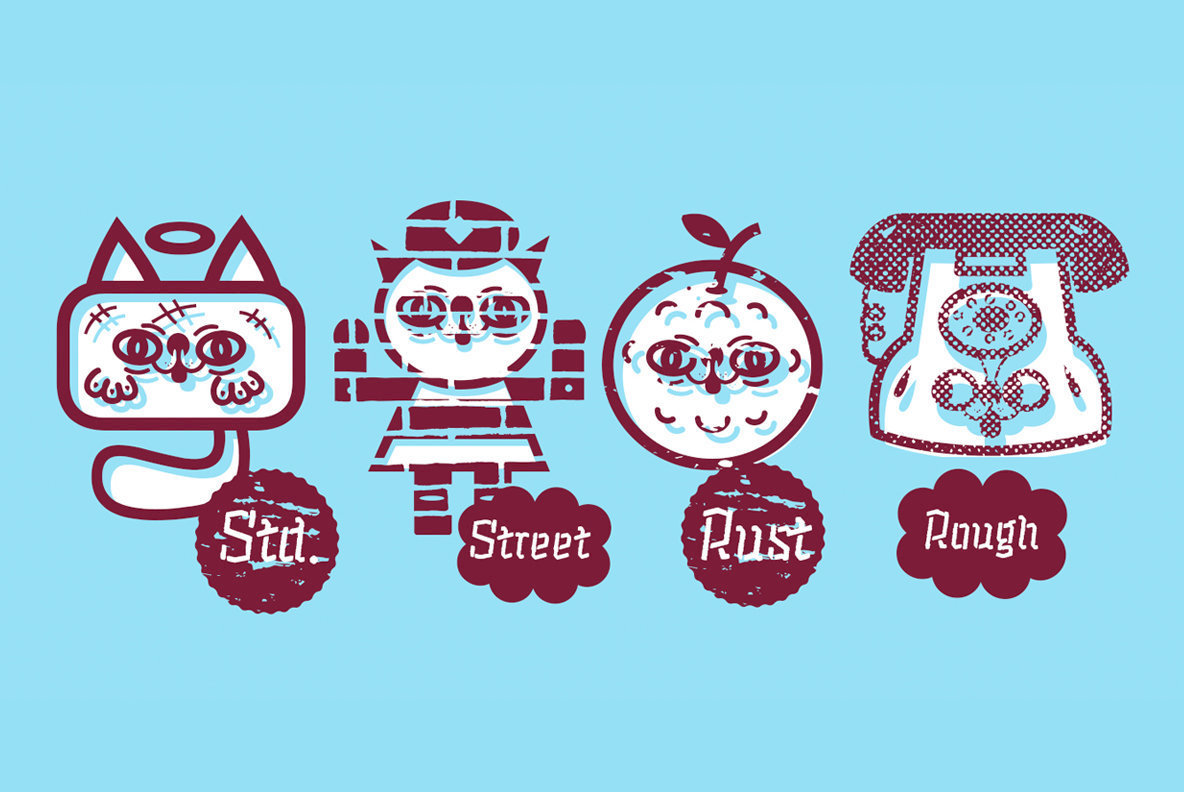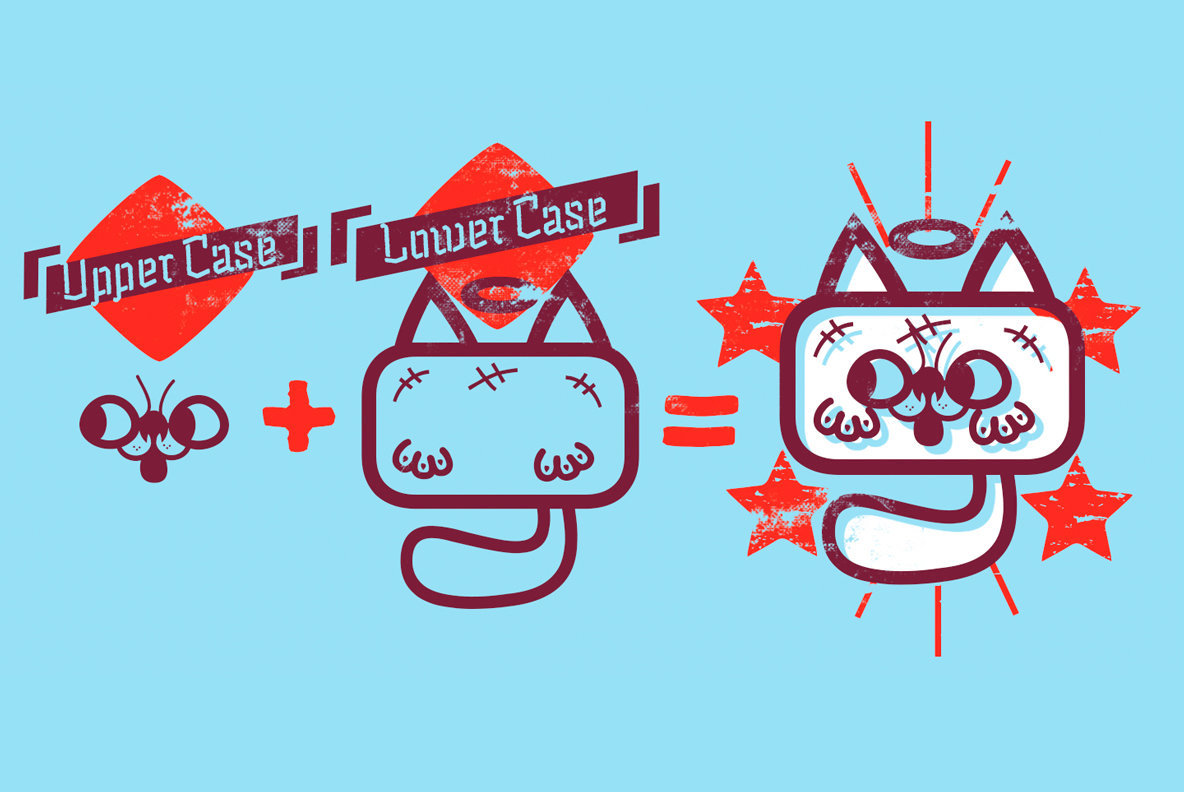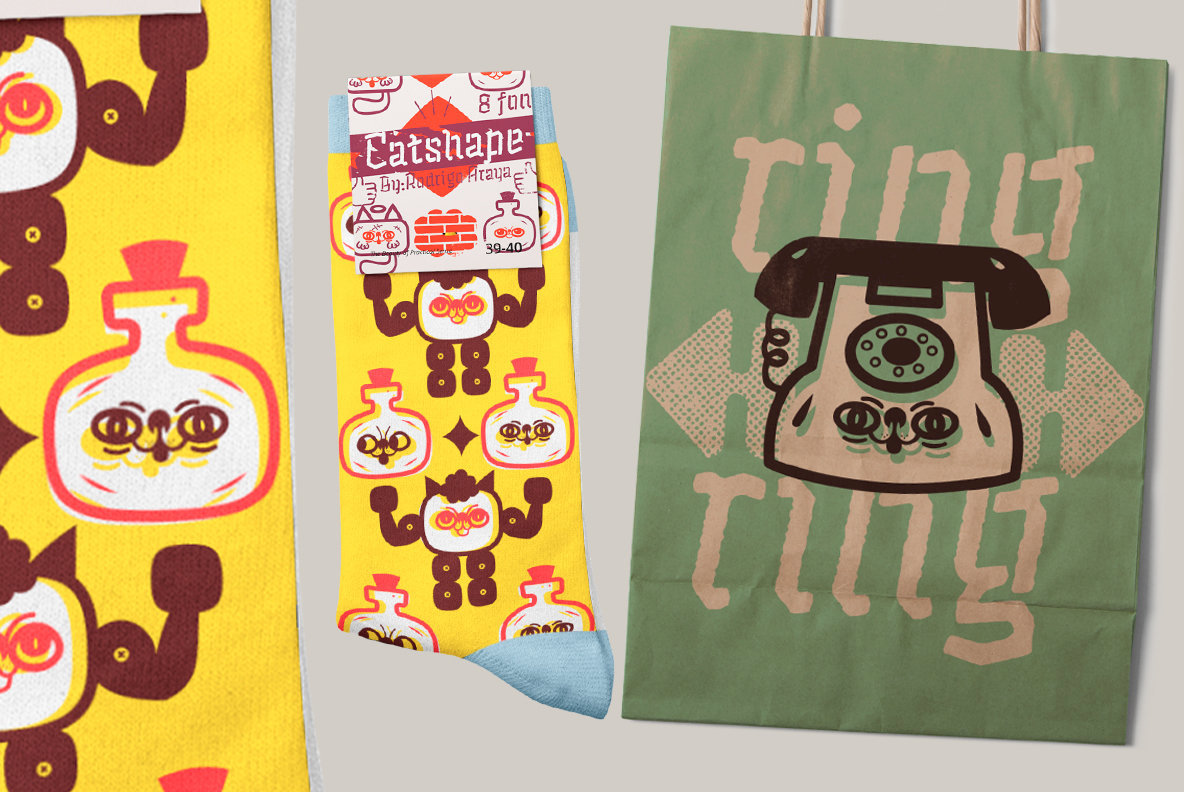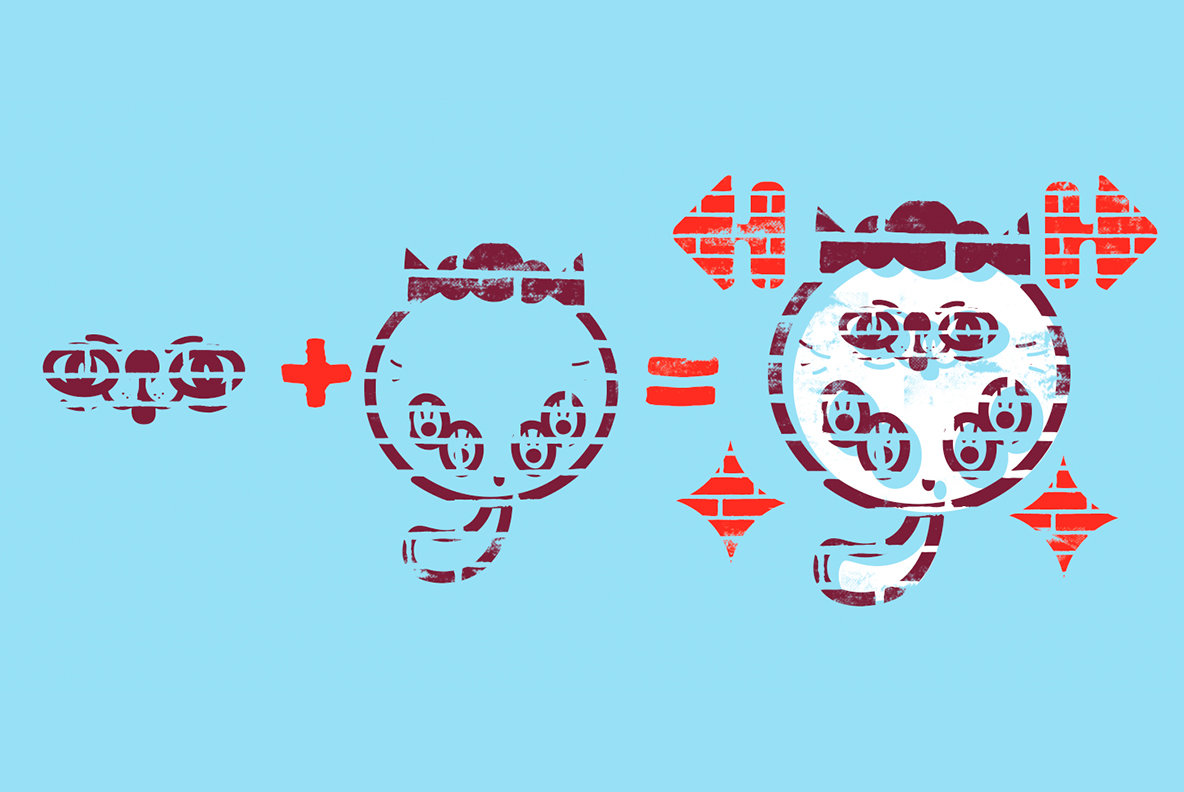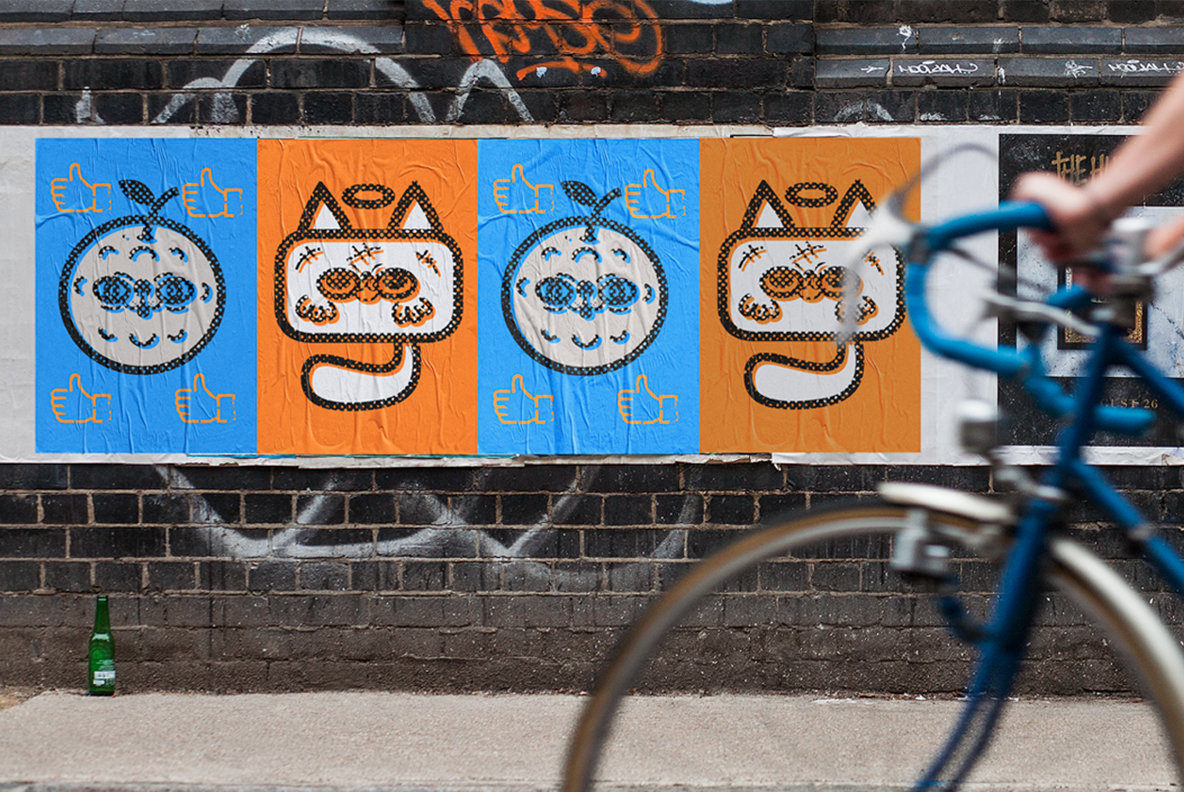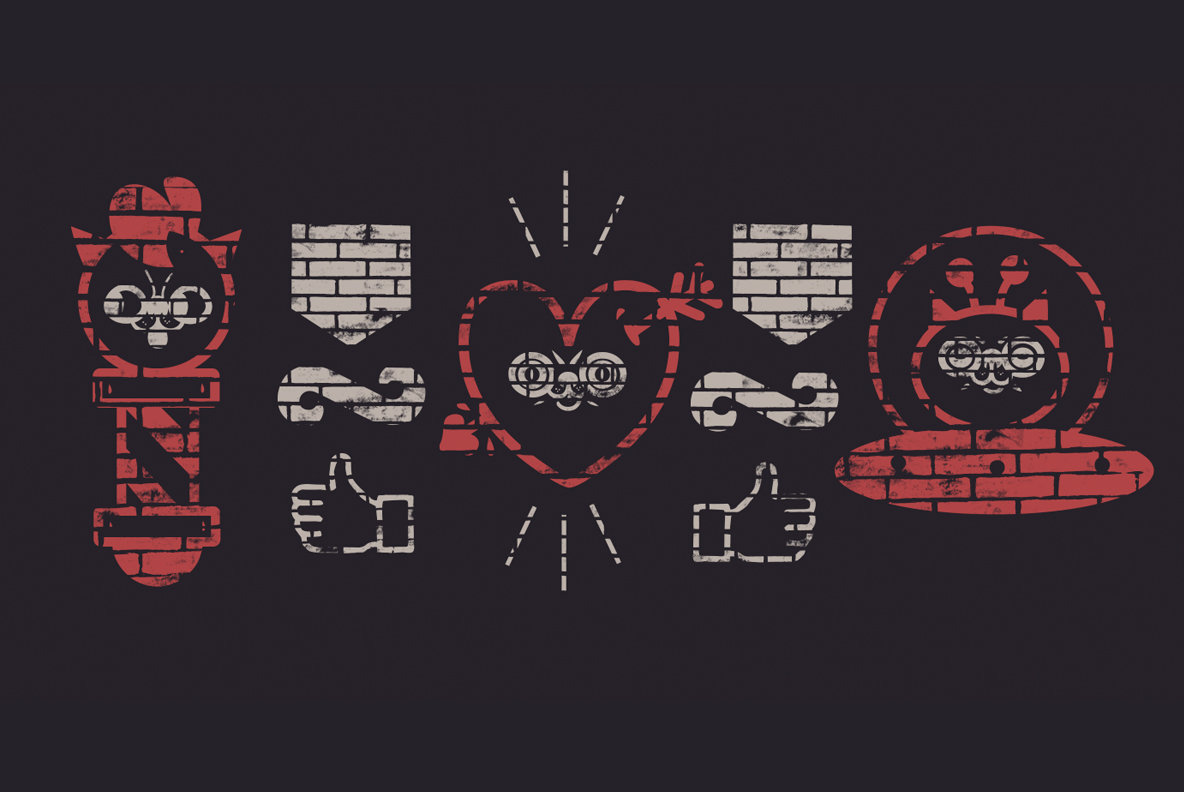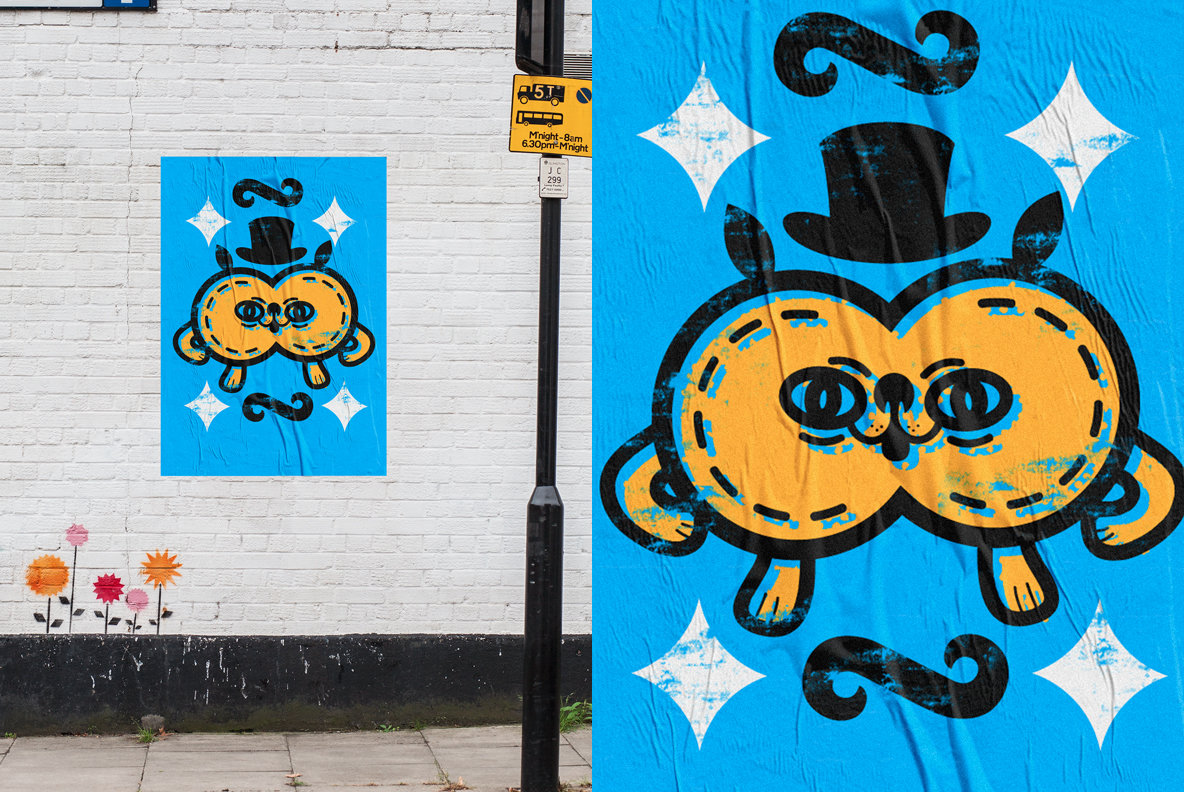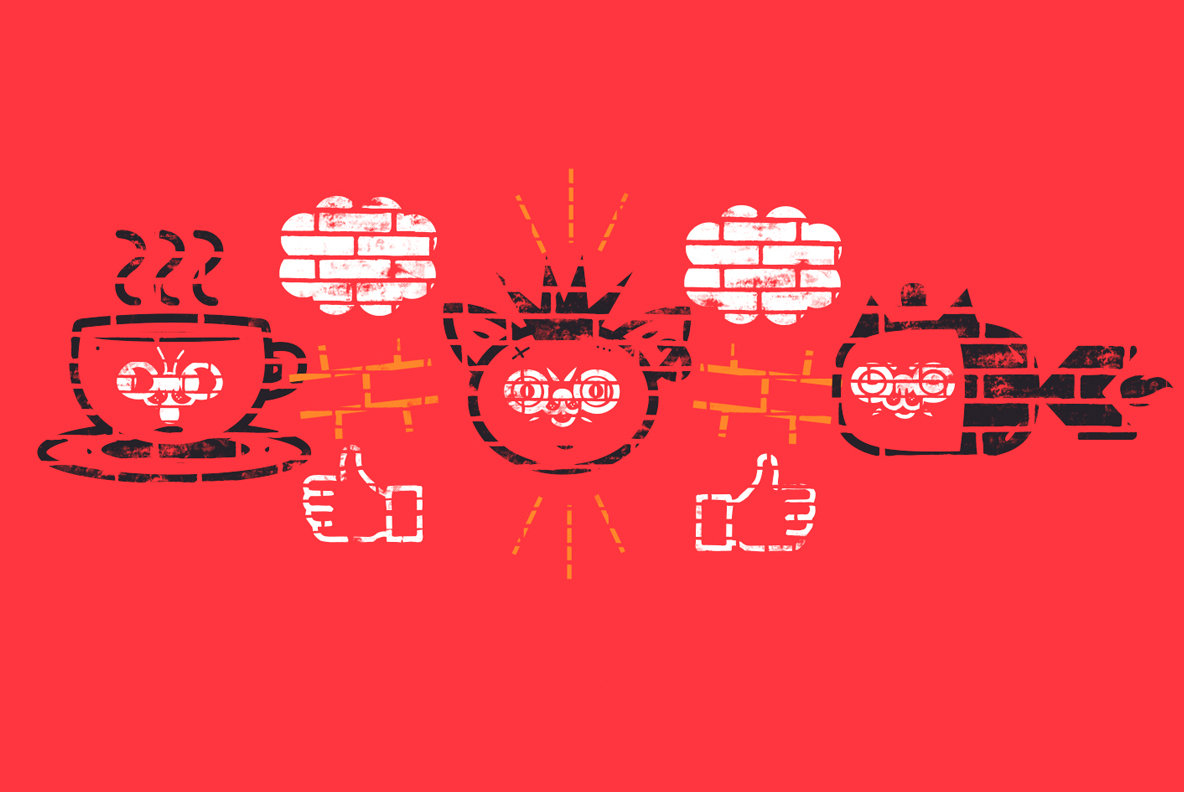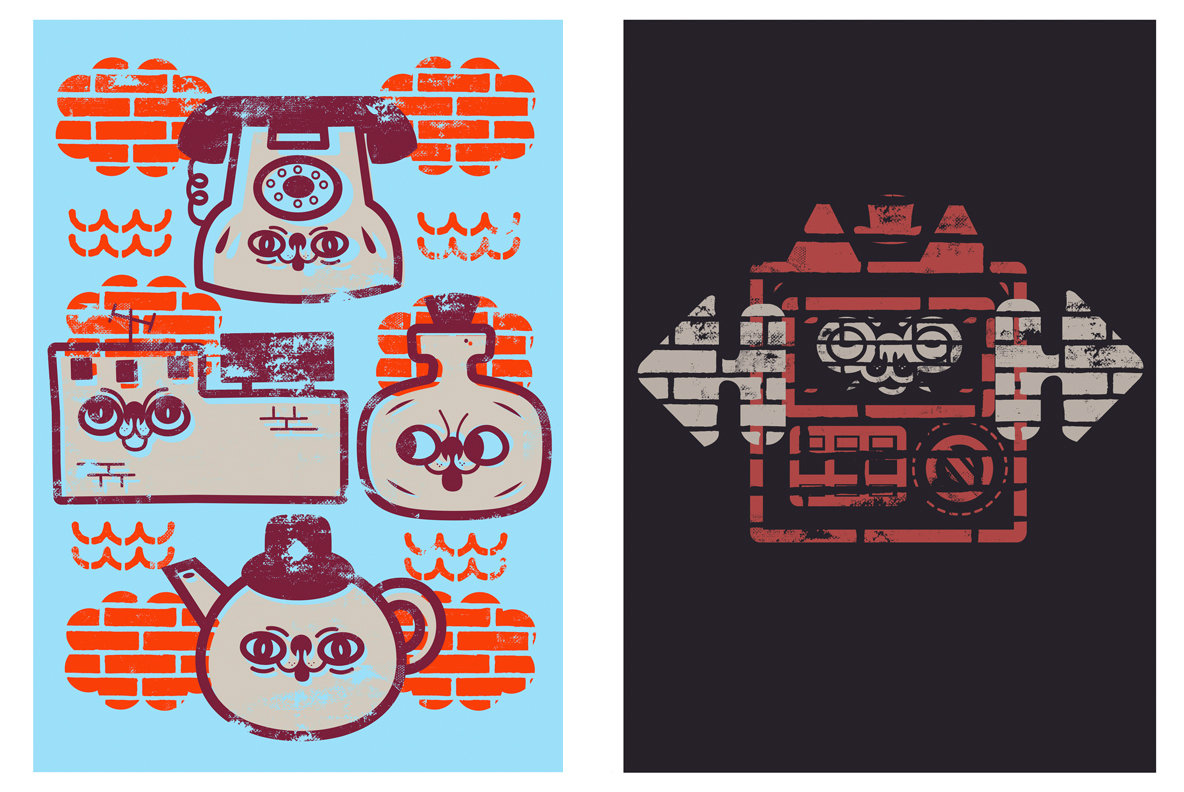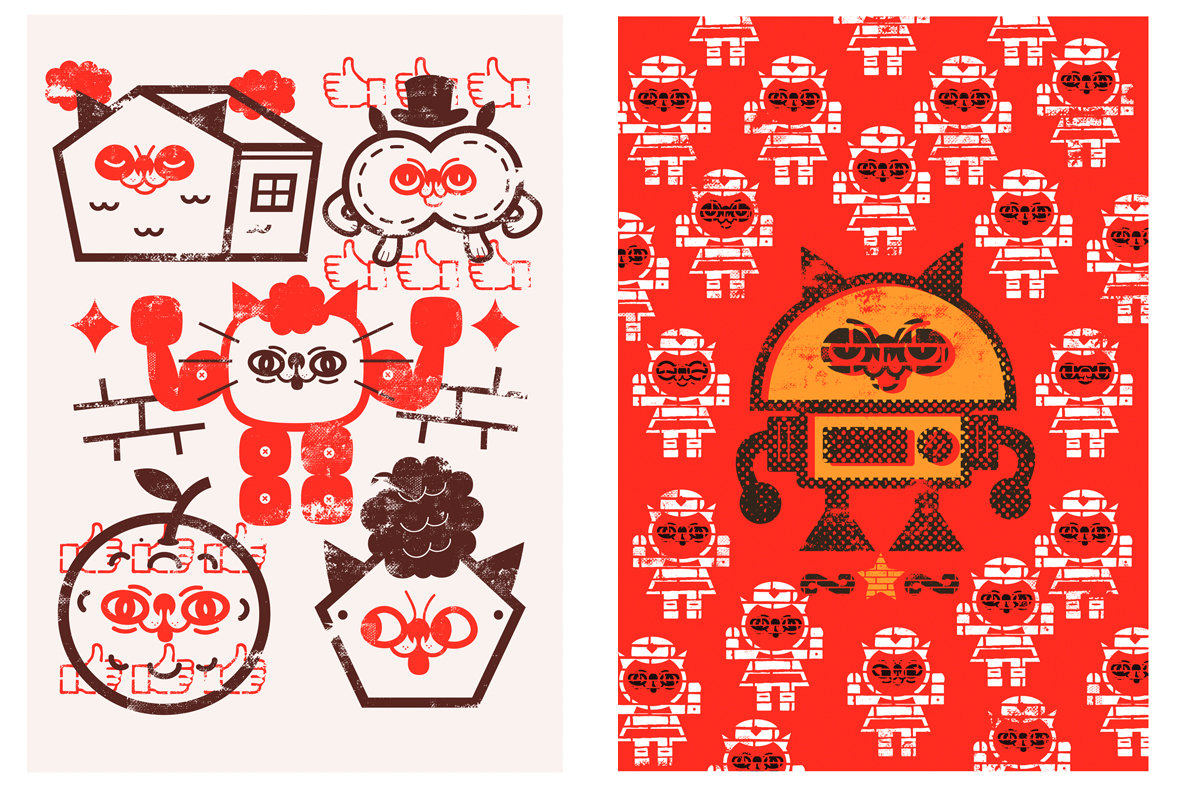
Catshape Font
Catshape, a delightful font from RodrigoTypo, offers an engaging way to explore typographic expression. With its unique dingbat style, this font allows designers to be playful by mixing uppercase and lowercase letters for varied character combinations and textures. Loaded with ornaments, it extends its utility further with the Alquitran Stencil companion font, making it perfect for a range of graphic projects.Catshape: Playful Dingbat Font